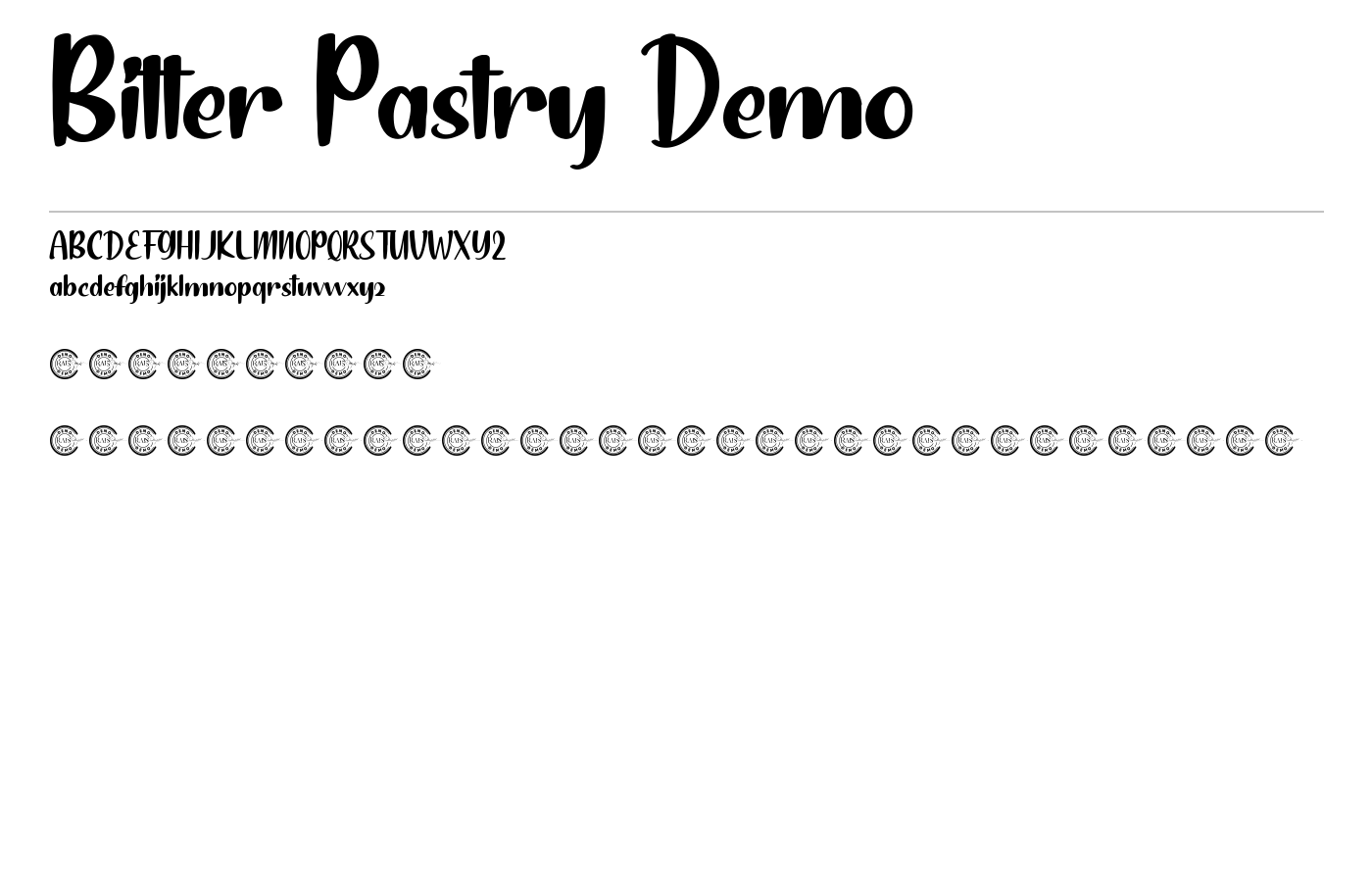
Bitter Pastry Demo is a playful and organic sans serif font with a hand-drawn feel, featuring tall, rounded letterforms and soft, irregular strokes that give it a warm, approachable personality. Its unique quirky shapes and casual style make it ideal for creative branding, children’s books, and informal headlines where a friendly and inviting tone is desired. This font works best in designs that aim for a personal touch and expressive charm rather than formal or technical precision.
Bitter Pastry Demo Font
About Bitter Pastry Demo Font
| Font family | Bitter Pastry Demo Font |